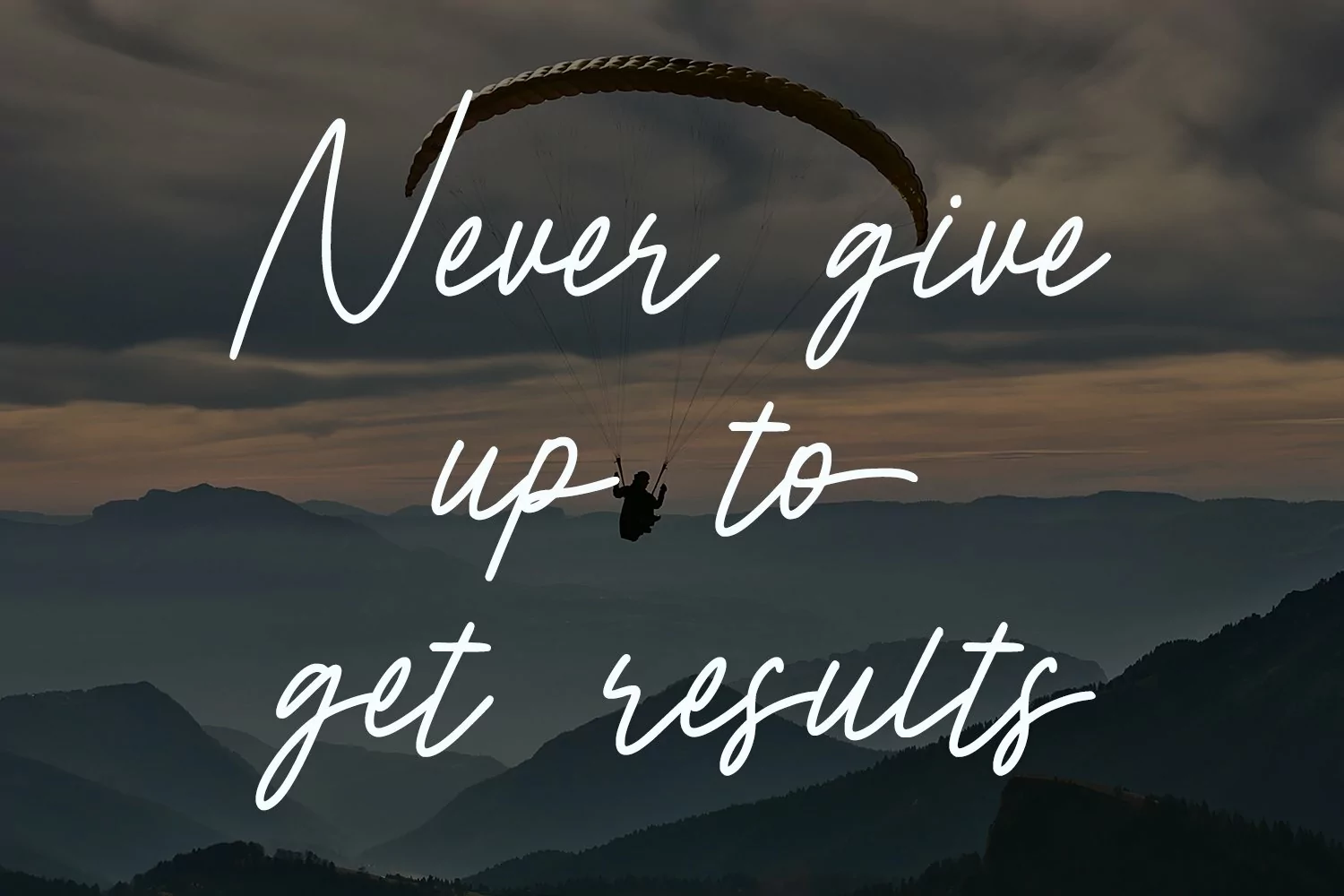
AdamstownSignature - Cool Signature Font that contain lowercase, uppercase, symbol, and also support multi language. There’s a lot ligatures in this font. This Font also comes with ligatures, alternates and many more. this font suitable for fashion, branding, catalog and other design what you want.